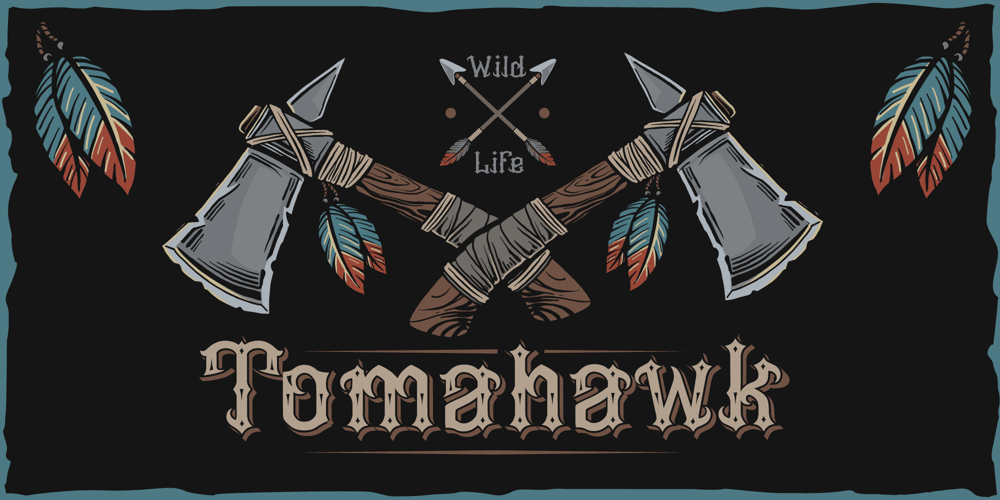
Tomahawk Font Family was designed by Evgeny Dneprovsky and published by Fractal Font Factory. Tomahawk contains 3 styles and family package options. Tomahawk – american authentic layered typeface.A typeface inspired by American ethnic motives, with a touch of gothic spirit.